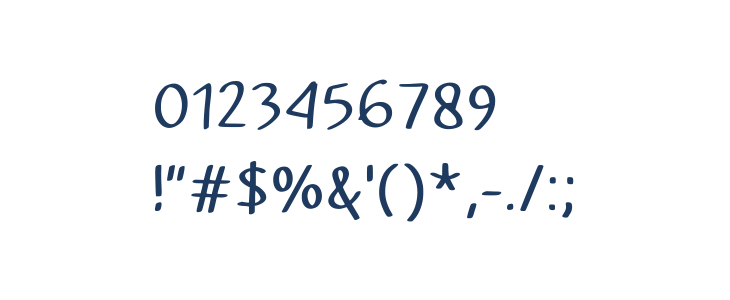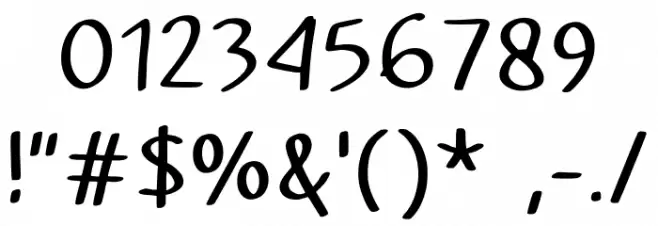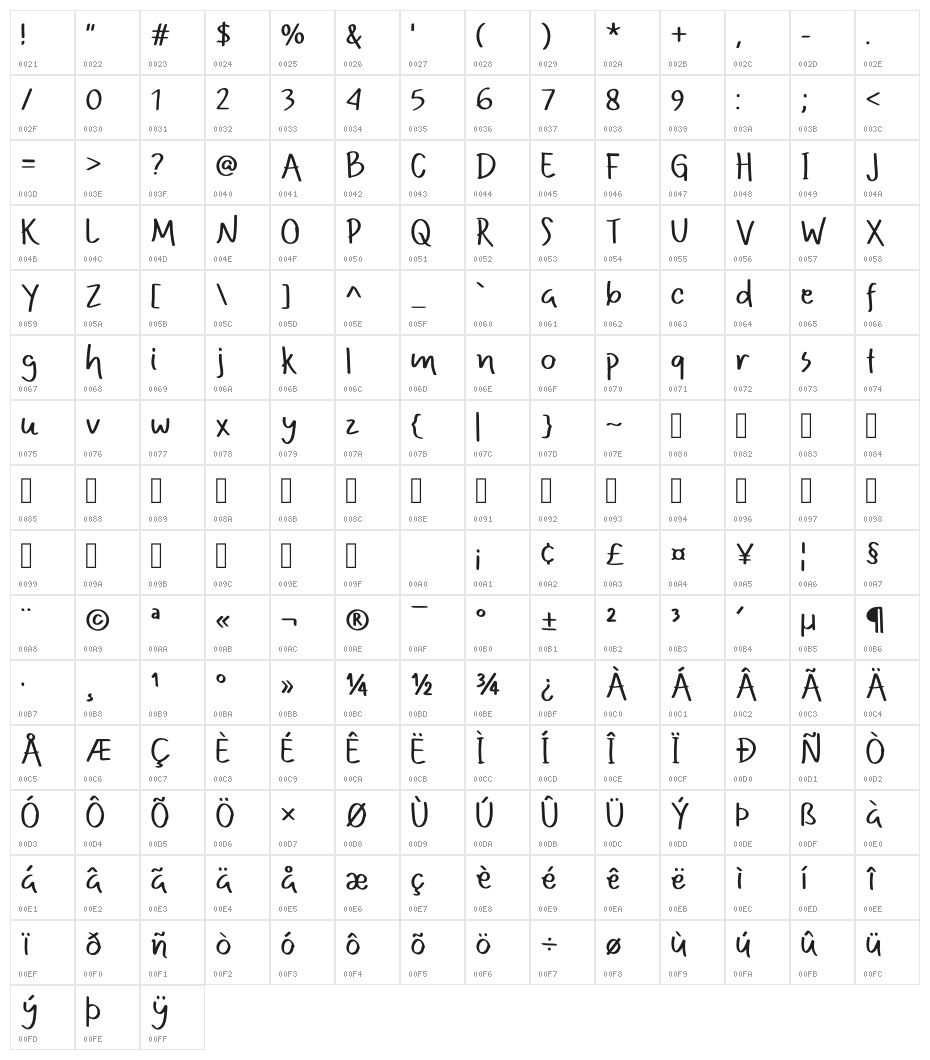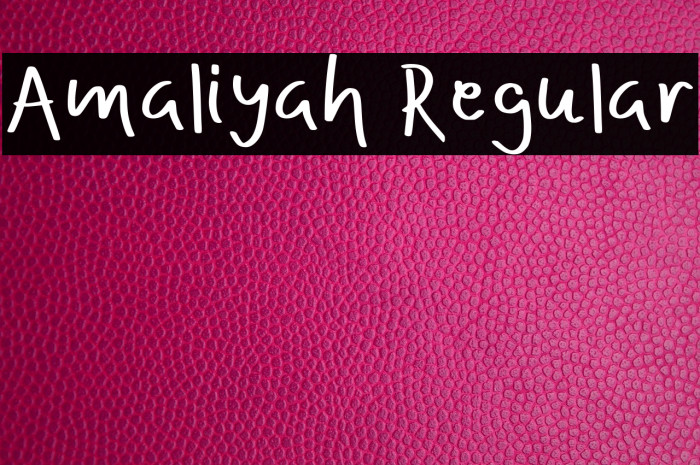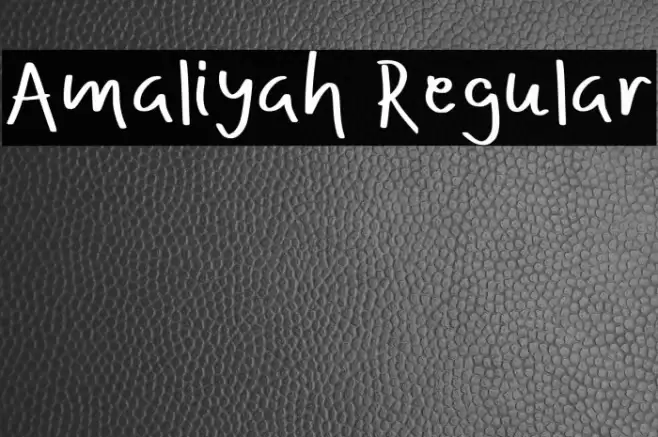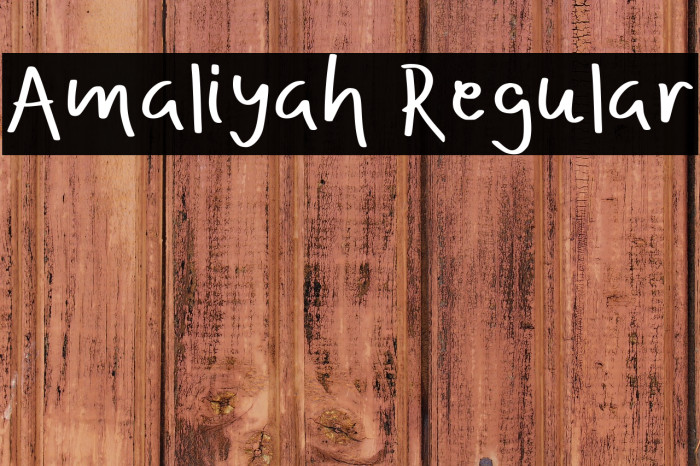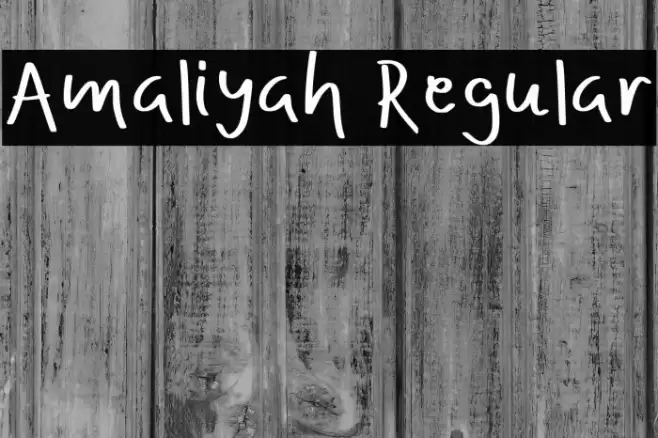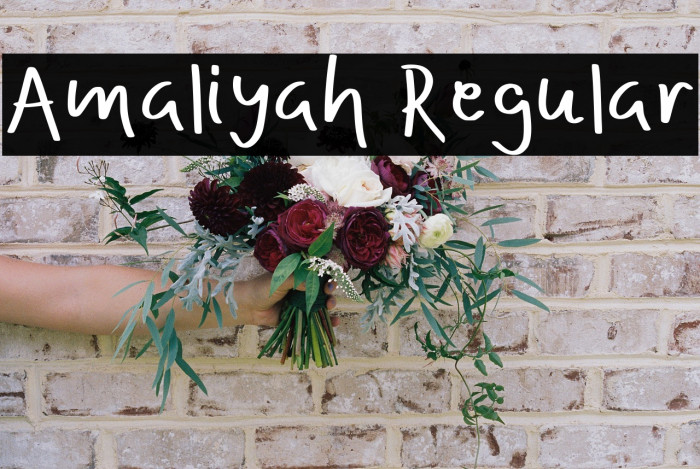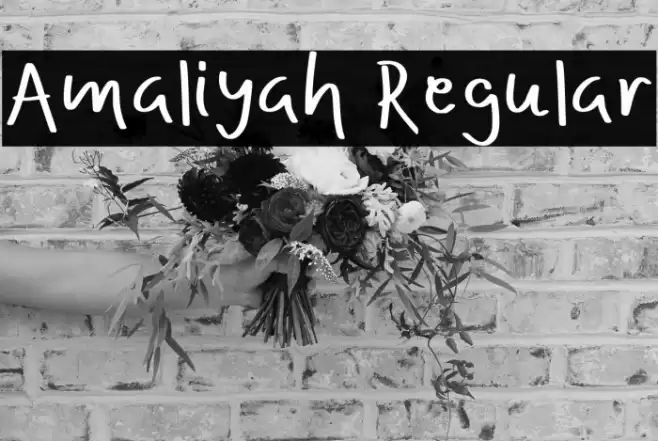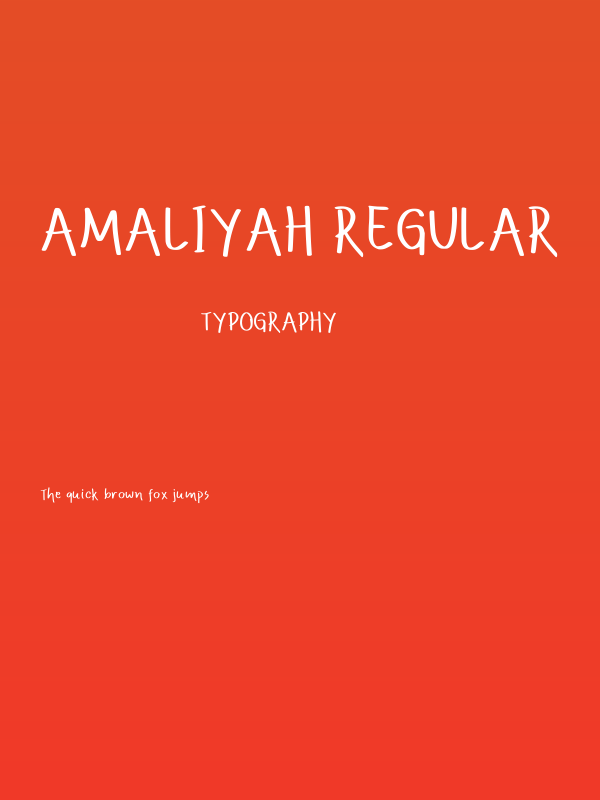
Amaliyah Regular Font
Amaliyah Regular Description
This font features a playful and casual handwritten style, characterized by its smooth, flowing lines and slightly irregular shapes that give it a personal touch. The uppercase letters are bold and slightly angular, while the lowercase letters maintain a consistent, rounded form that enhances readability. The numerals are clear and distinct, matching the overall aesthetic of the alphabet. Special characters are well-integrated, maintaining the font's cohesive appearance. This font exudes a friendly and approachable vibe, making it suitable for a variety of informal applications.